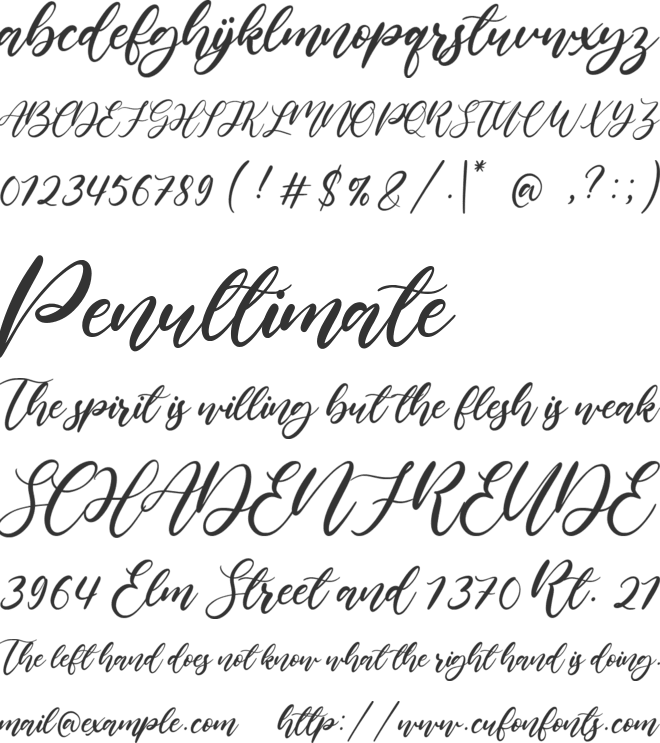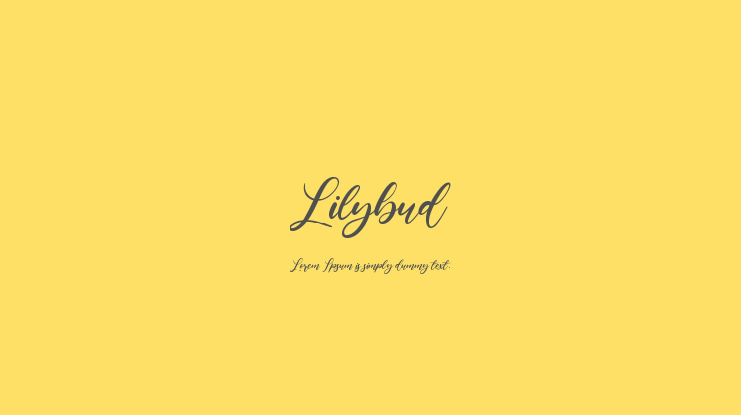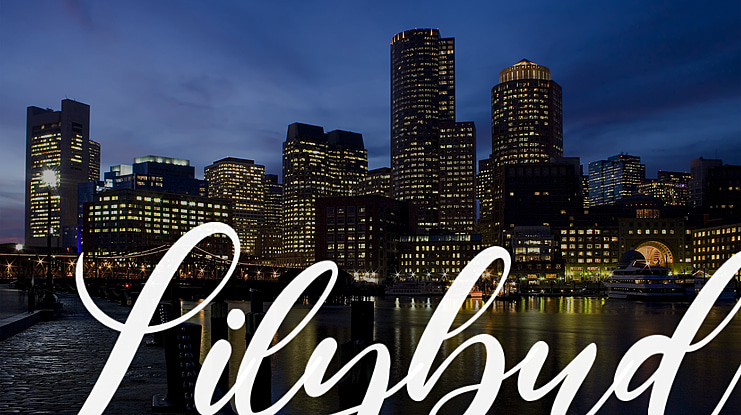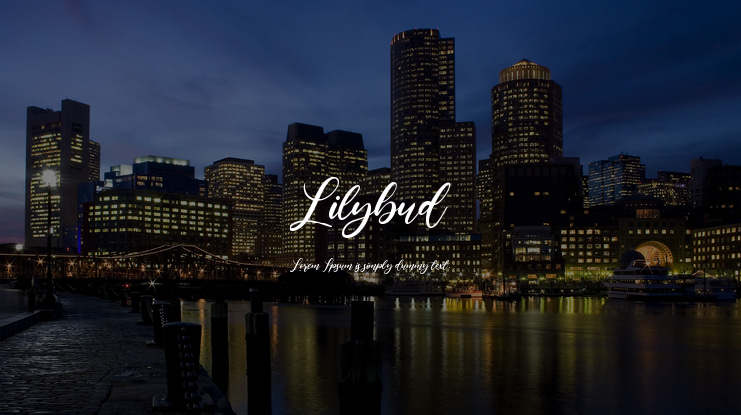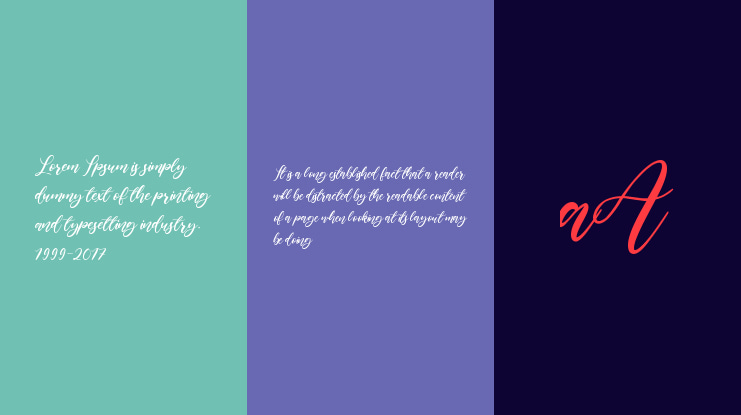
Lilybud Font
Proudly Present, Lilybud Font.
Lilybud is a Cute Modern Handwritten font.
Lilybud is perfect for product packaging, branding project, megazine, social media, wedding, or just used to express words above the background.